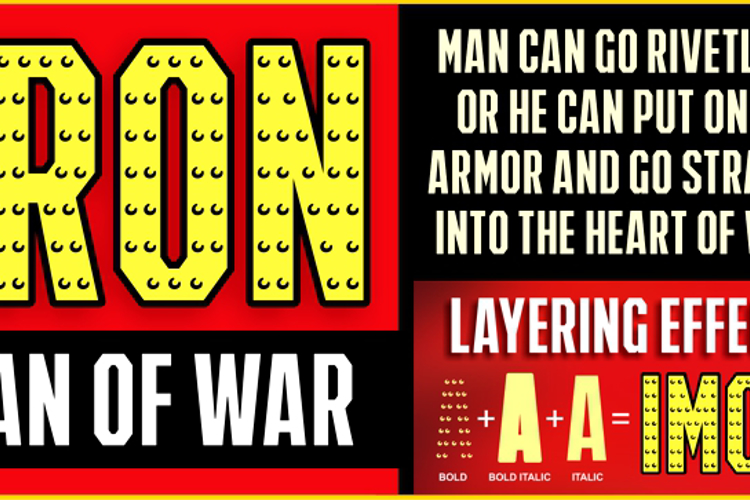
IRON MAN OF WAR Font
Get ready to experience four ferrous versions of an industrialistic face that will leave your graphics anchored in place and armored up for war. Replete with buckets of rivets and powerful angles, the MAN OF WAR font family will help you lock down a layout in ways regular typefaces can't match. Your designs will experience an invincibility rarely seen as you choose between plain or permanently bolted in place. And to supplement these metallic ventures there's IMOW2, providing the perfect headline and display support. Or perhaps IMOW2 will be the primary weapon in your arsenal. It certainly has the power to handle any task you put it to. So the question is, which face will you choose to suit up and enter the fray with?